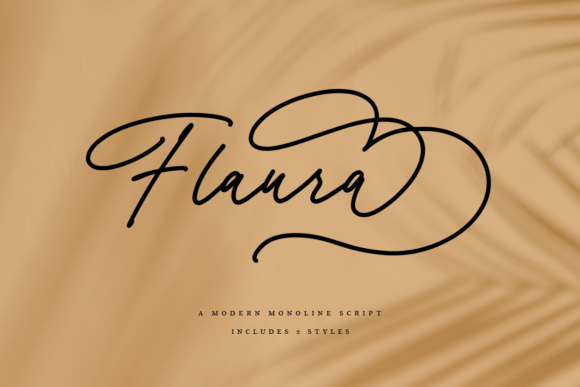
The Flaura Font: A Feminine Touch for Your Designs
Have you ever been in the middle of a design project, and suddenly, you just can’t seem to find the right font? I recall a particularly frustrating moment when I was working on a branding project for a boutique client. The design needed a personal touch, something that screamed elegance and sophistication. That’s when I stumbled upon the Flaura font, a beautiful script font with a feminine, handwritten style.
A Personal Review of Flaura Font
What I Love About Flaura Font
- ✨ Elegant and sophisticated: Flaura font adds a touch of luxury to any design project.
- ✅ Highly legible: Despite its script style, Flaura font is easy to read, making it perfect for body text.
- 💫 Versatile: Flaura font can be used for a wide range of design projects, from branding and packaging to invitations and social media graphics.
- 🎨 Customizable: With its OpenType features and glyphs, Flaura font can be easily customized to fit your design needs.
While Flaura font is an excellent choice for many design projects, there are a few quirks to be aware of:
- 🤔 Limited use in very small sizes: Like many script fonts, Flaura font can become difficult to read in very small sizes.
- ⚠️ Not suitable for all languages: Flaura font may not support all languages, so be sure to check its language support before using it for a project.
Flaura font was designed with the intention of creating a beautiful, elegant script font that would add a touch of sophistication to any design project. The designer, who wished to remain anonymous, drew inspiration from traditional calligraphy and hand-lettering techniques. The result is a font that’s both refined and approachable, perfect for designers looking to add a personal touch to their work.
Q: What is Flaura font?
A: Flaura font is a script font featuring a feminine, handwritten style. It’s perfect for design projects that require a personal touch.
Q: Is Flaura font suitable for body text?
A: Yes, Flaura font is highly legible and can be used for body text. However, it’s recommended to use it in larger sizes (14pt or larger) for optimal readability.